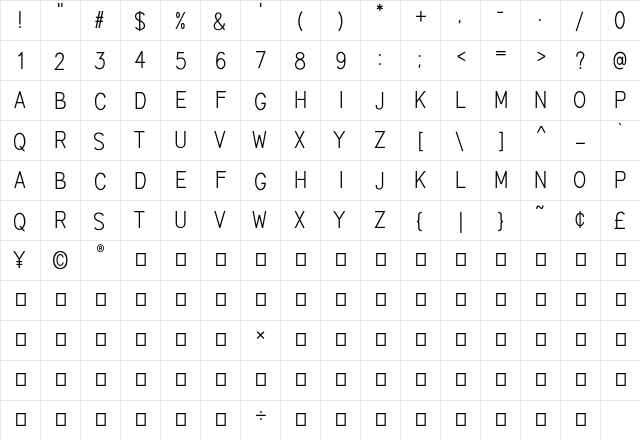
Marvelous Sans Demo Regular
Design Context for Marvelous Sans Demo Typeface
Marvelous Sans Demo is a composed and adaptable typeface that performs quietly and consistently across a wide range of design contexts.